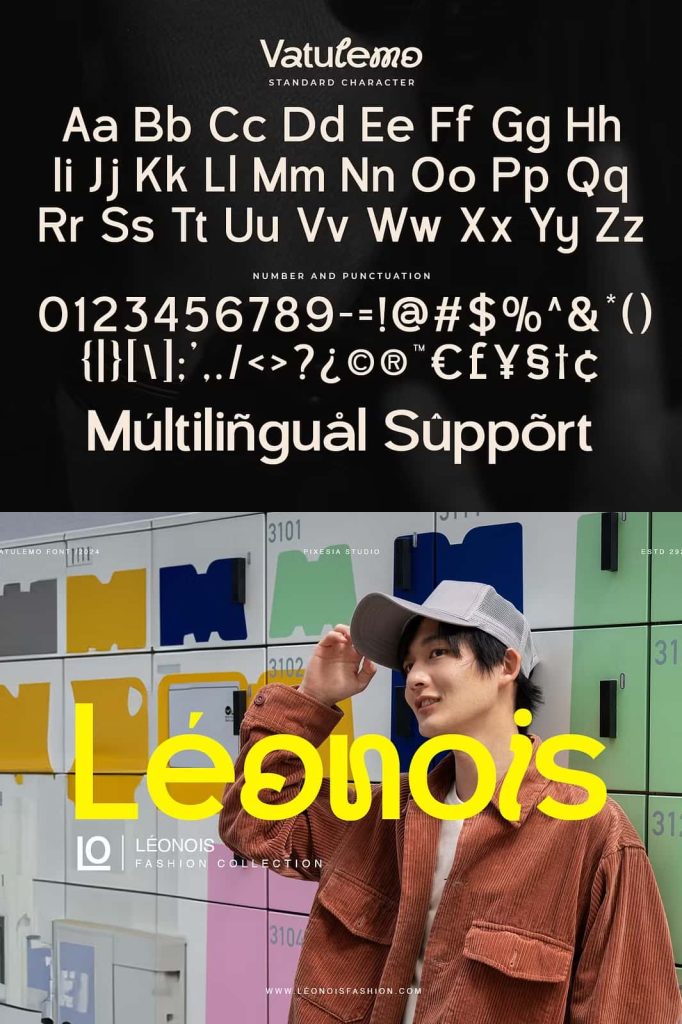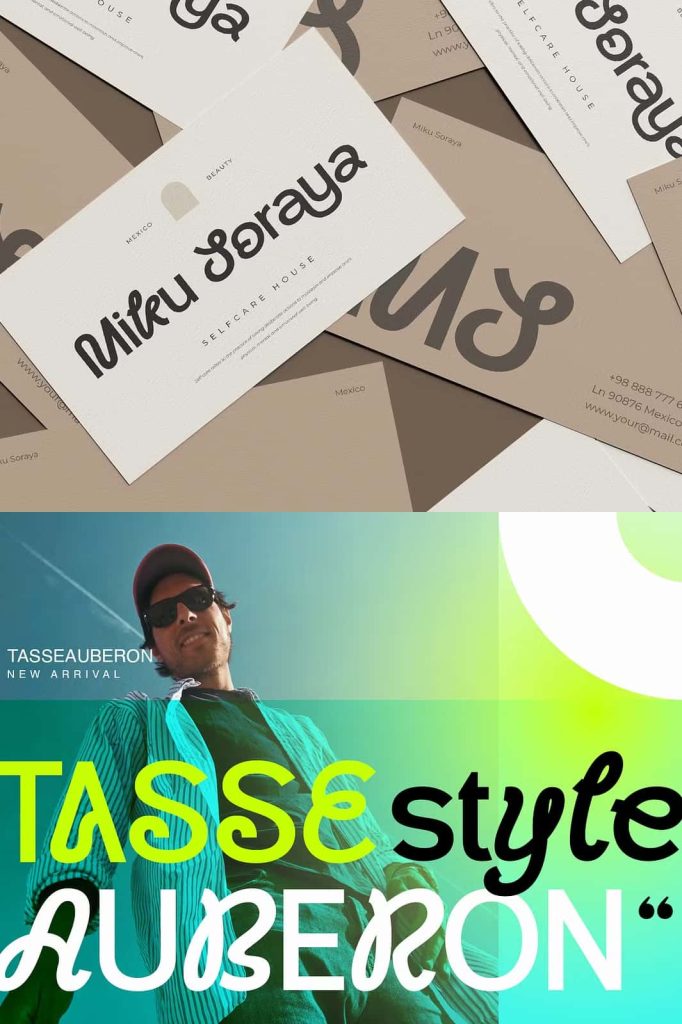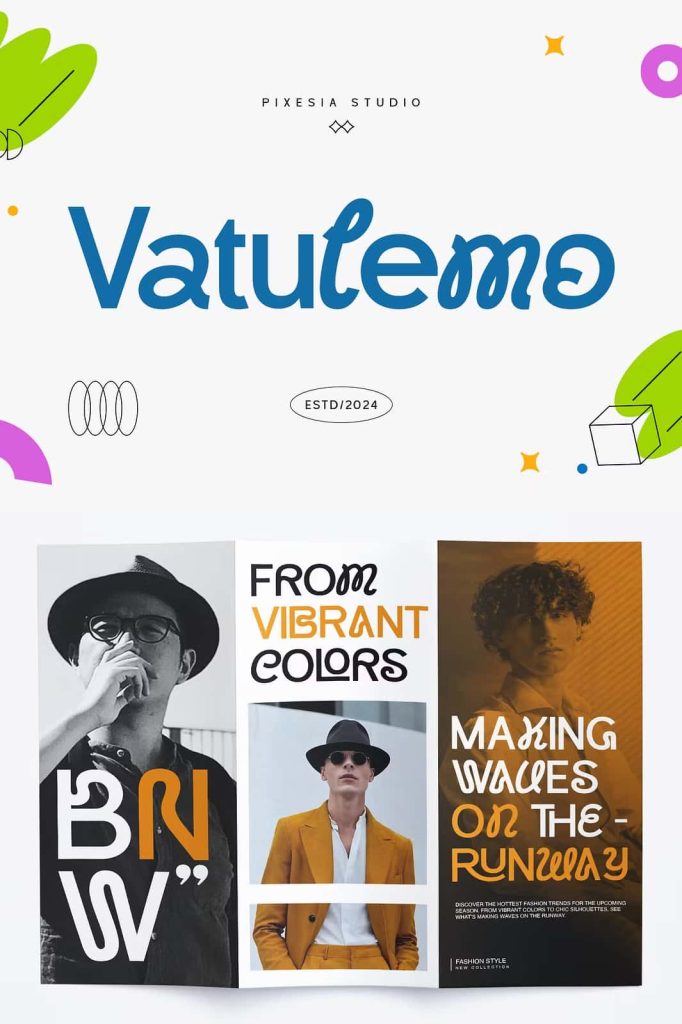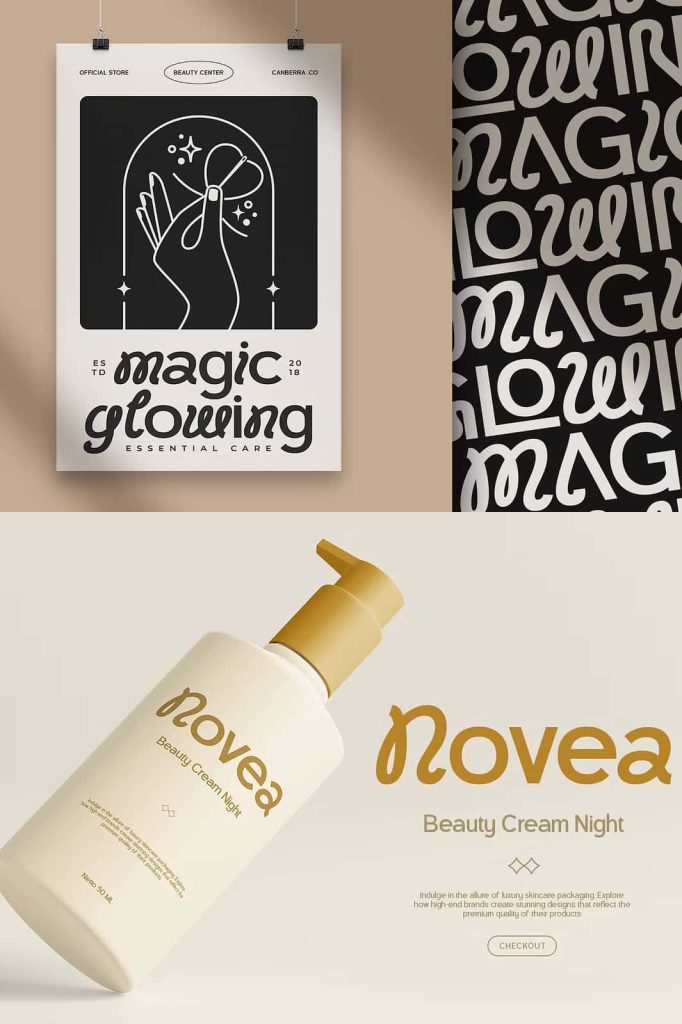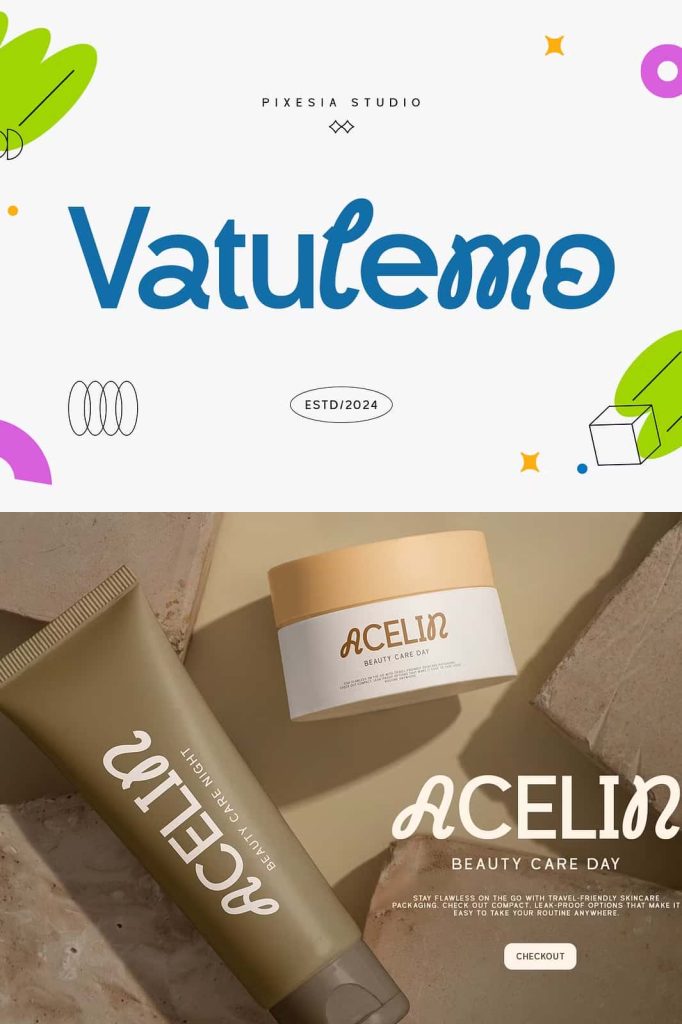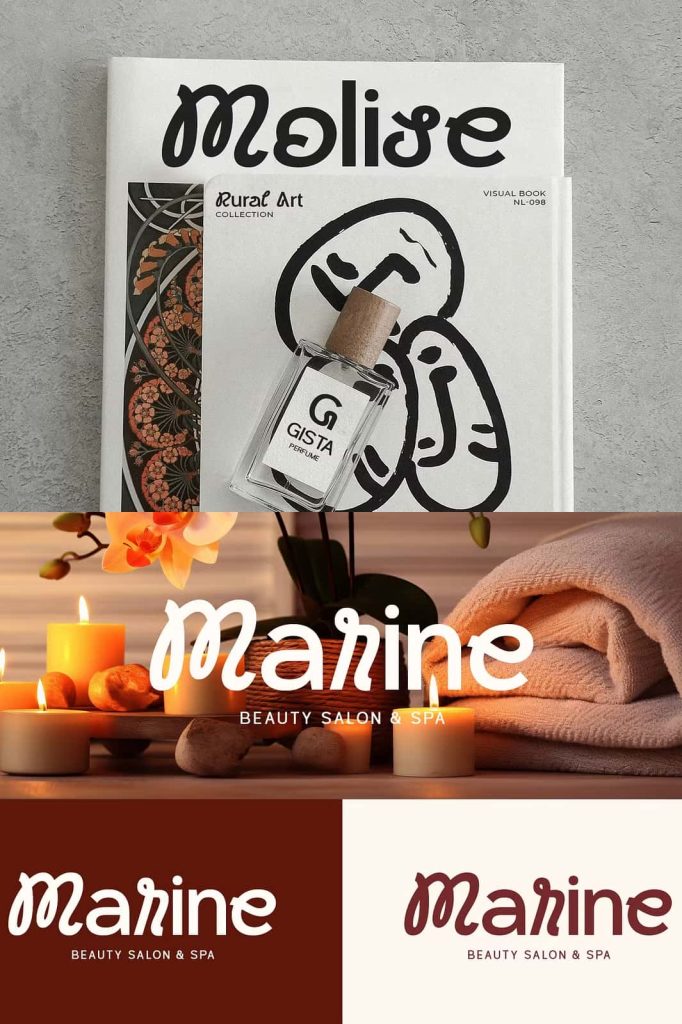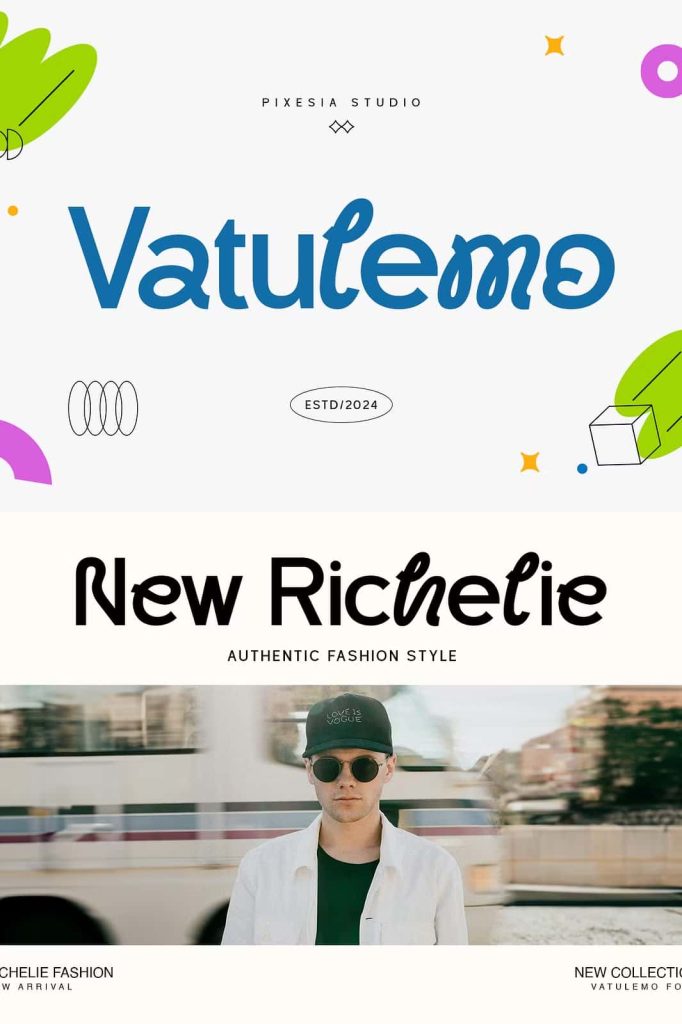
Vatulemo – Experimental Sans Serif
Vatulemo Experimental Font – A Contemporary Typeface with Unique Curves and Creative Character
Vatulemo Experimental Font is a distinctive and innovative typeface designed for creatives who want to bring originality, elegance, and personality into their work. Featuring a sleek contemporary structure combined with expressive curves and playful loops, this font offers a fresh perspective on modern typography. By blending traditional sans-serif principles with artistic details, Vatulemo creates a unique visual identity that instantly captures attention and leaves a memorable impression.
Designed for versatility and creative freedom, Vatulemo allows designers to explore countless possibilities across branding, marketing, advertising, and digital media. Its balanced combination of sophistication and experimentation makes it suitable for projects that demand both professionalism and artistic expression. Whether you are building a brand identity, designing a logo, creating social media content, or developing product packaging, Vatulemo provides the visual impact needed to make your work stand out.
A Modern Typeface with an Experimental Approach
Typography plays a crucial role in shaping the personality of a design, and Vatulemo embraces this responsibility through its innovative character design. Unlike conventional fonts that follow predictable structures, Vatulemo introduces distinctive curves and unexpected details that create a truly unique appearance.
Its experimental nature allows designers to break away from traditional typography while maintaining excellent readability and visual balance. The font combines clean contemporary forms with artistic flourishes, making it an ideal choice for projects that seek to communicate creativity, confidence, and originality.
By merging modern aesthetics with imaginative design elements, Vatulemo creates typography that feels dynamic, engaging, and highly memorable. Every character contributes to a cohesive visual language that helps brands and creative projects establish a strong and recognizable identity.
Sleek Contemporary Design with Distinctive Curves
One of the most striking features of Vatulemo is its sleek and refined construction. The font incorporates smooth lines, elegant proportions, and carefully crafted curves that enhance its visual appeal. These design characteristics create a polished appearance while maintaining the playful personality that makes the typeface unique.
The distinctive curves introduce movement and energy into the typography, helping text feel more expressive and engaging. This visual rhythm allows designers to create layouts that naturally attract attention and guide viewers through the content.
Whether displayed in large headlines or used as a central branding element, Vatulemo consistently delivers a sophisticated and modern aesthetic that elevates the overall quality of any design.
Playful Loops That Add Personality
Vatulemo goes beyond traditional sans-serif design by incorporating playful loops and creative letterform details. These unique features add character and individuality without overwhelming the readability of the font. The result is a typeface that feels artistic yet practical, making it suitable for both professional and creative applications.
The decorative loops provide subtle visual interest that enhances logos, headlines, packaging, and promotional materials. Designers can use these details to create typography that feels exclusive, memorable, and full of personality.
Unique Visual Identity
The playful loops and expressive forms help create a distinctive typographic voice that differentiates your projects from competitors and generic designs.
Elegant Creative Expression
Despite its experimental qualities, Vatulemo maintains a refined and elegant appearance that supports premium branding and sophisticated visual communication.
Versatile Design Performance
The font adapts seamlessly across various media, ensuring consistent results in both print and digital environments.
Perfect for Branding and Logo Design
Strong typography is essential for building a memorable brand, and Vatulemo provides the tools needed to create impactful visual identities. Its distinctive design helps businesses establish a recognizable presence while communicating creativity and professionalism.
The font works exceptionally well for logo design, wordmarks, and brand systems where uniqueness is a priority. Its carefully balanced letterforms allow brands to appear modern, approachable, and visually engaging.
Companies, entrepreneurs, and creative agencies can use Vatulemo to develop branding materials that capture attention and strengthen audience recognition.
Ideal for a Wide Range of Creative Applications
Vatulemo’s flexibility makes it suitable for numerous design projects across different industries. Its modern style and expressive details allow it to perform effectively in both commercial and personal creative work.
From branding and logo design to packaging, advertising, websites, social media, and print materials, Vatulemo adapts effortlessly to a wide range of professional applications. Designers can use this typeface to build stronger visual identities, enhance communication, and create work that stands apart from ordinary typography.
Choose Vatulemo Experimental Font when your project requires originality, elegance, and a modern creative touch. Its distinctive character and versatile performance make it an excellent addition to any designer’s font collection.